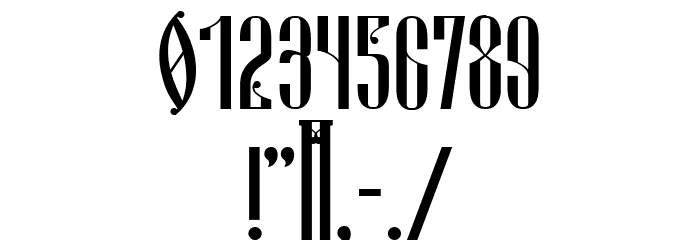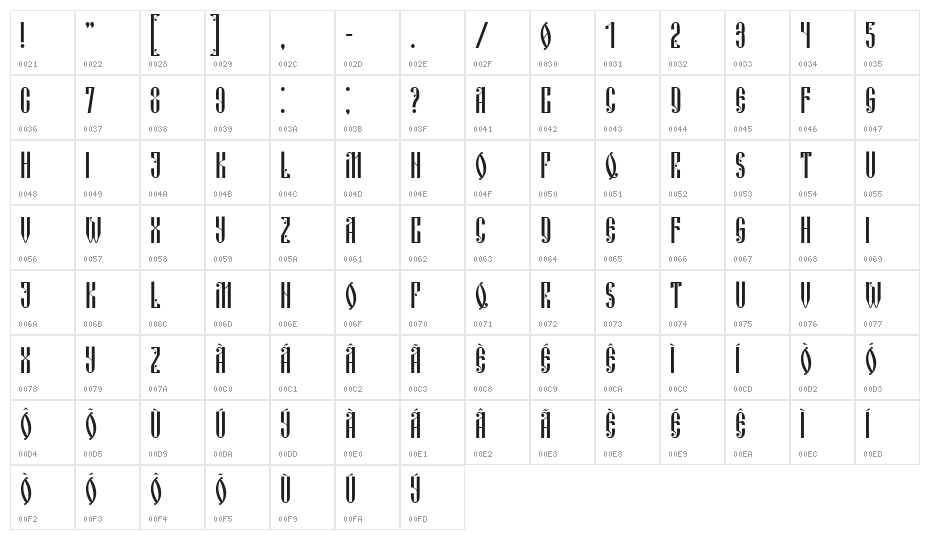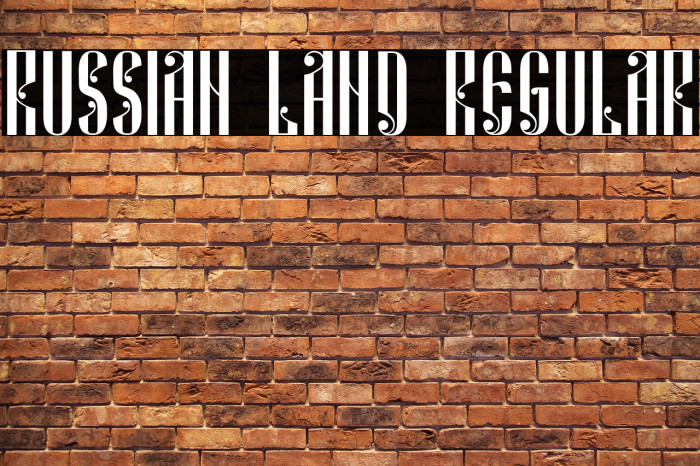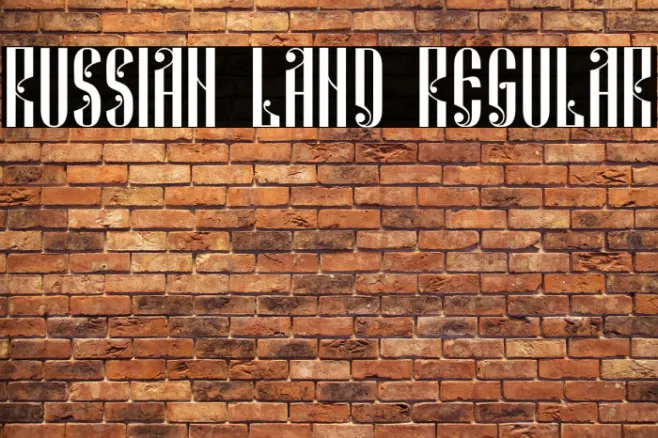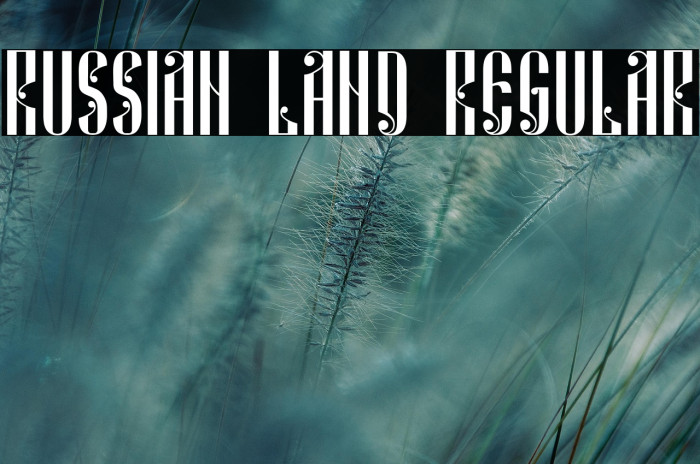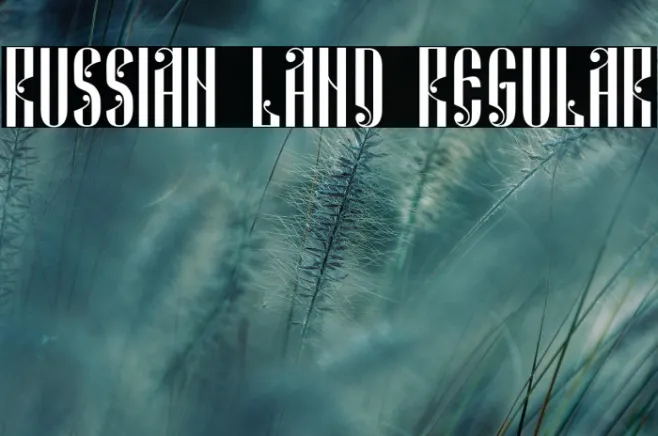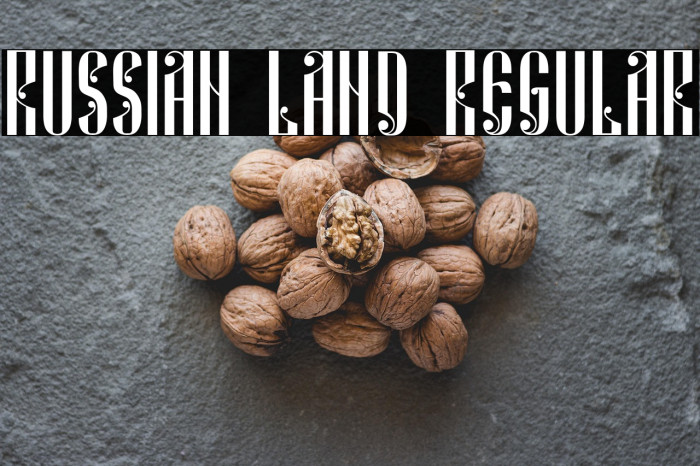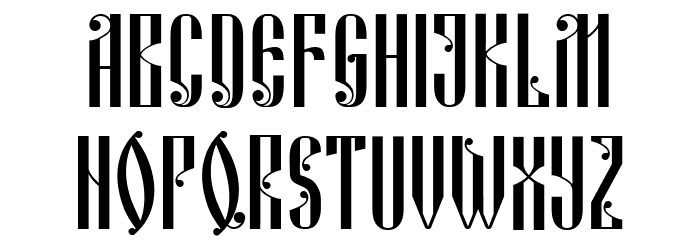
Russian Land Regular Font
Russian Land Regular Description
This font features a bold and decorative style with distinct, elongated serifs and intricate detailing. The characters are tall and narrow, with unique flourishes that add a touch of elegance and sophistication. The uppercase letters are particularly striking, with their vertical emphasis and ornamental elements, making them ideal for creating impactful headlines or titles. The numerals and special characters maintain the same decorative flair, ensuring consistency throughout. This font is perfect for projects that require a dramatic and artistic touch, such as posters, branding, or editorial design.